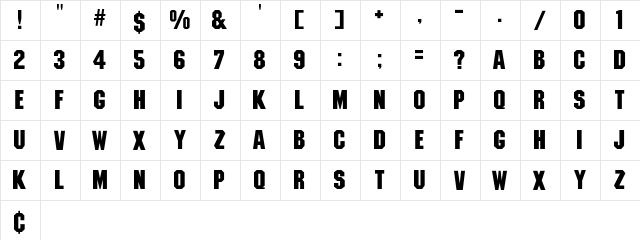
Savanarola Bld Regular
Design Context for Savanarola Bld Typeface
Savanarola Bld offers clean, dependable letterforms without strong stylistic allegiance, making it a practical choice for designers who need flexibility.
Pro Tip: Use Savanarola Bld in both headline and body roles to test its range before committing to a single application.